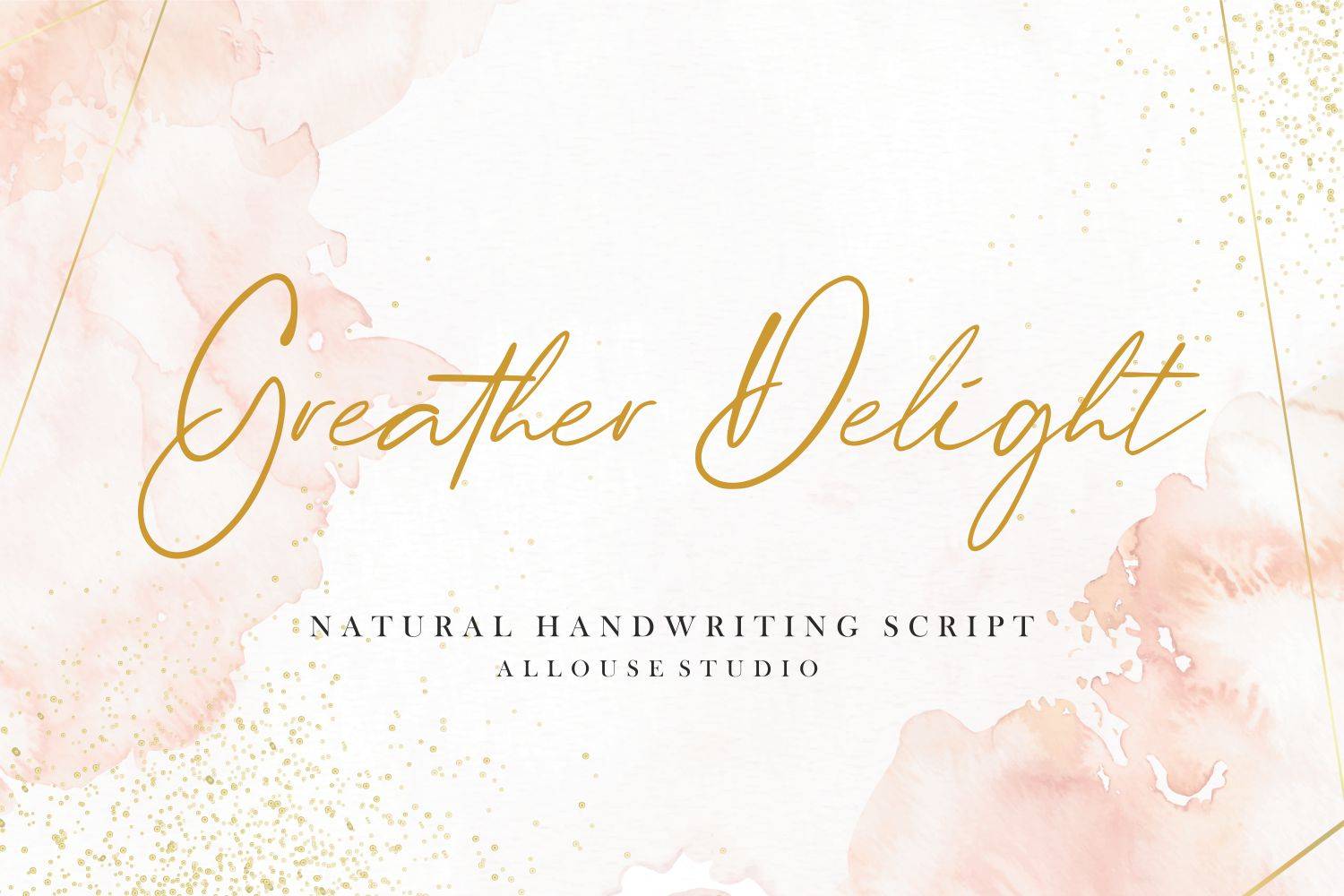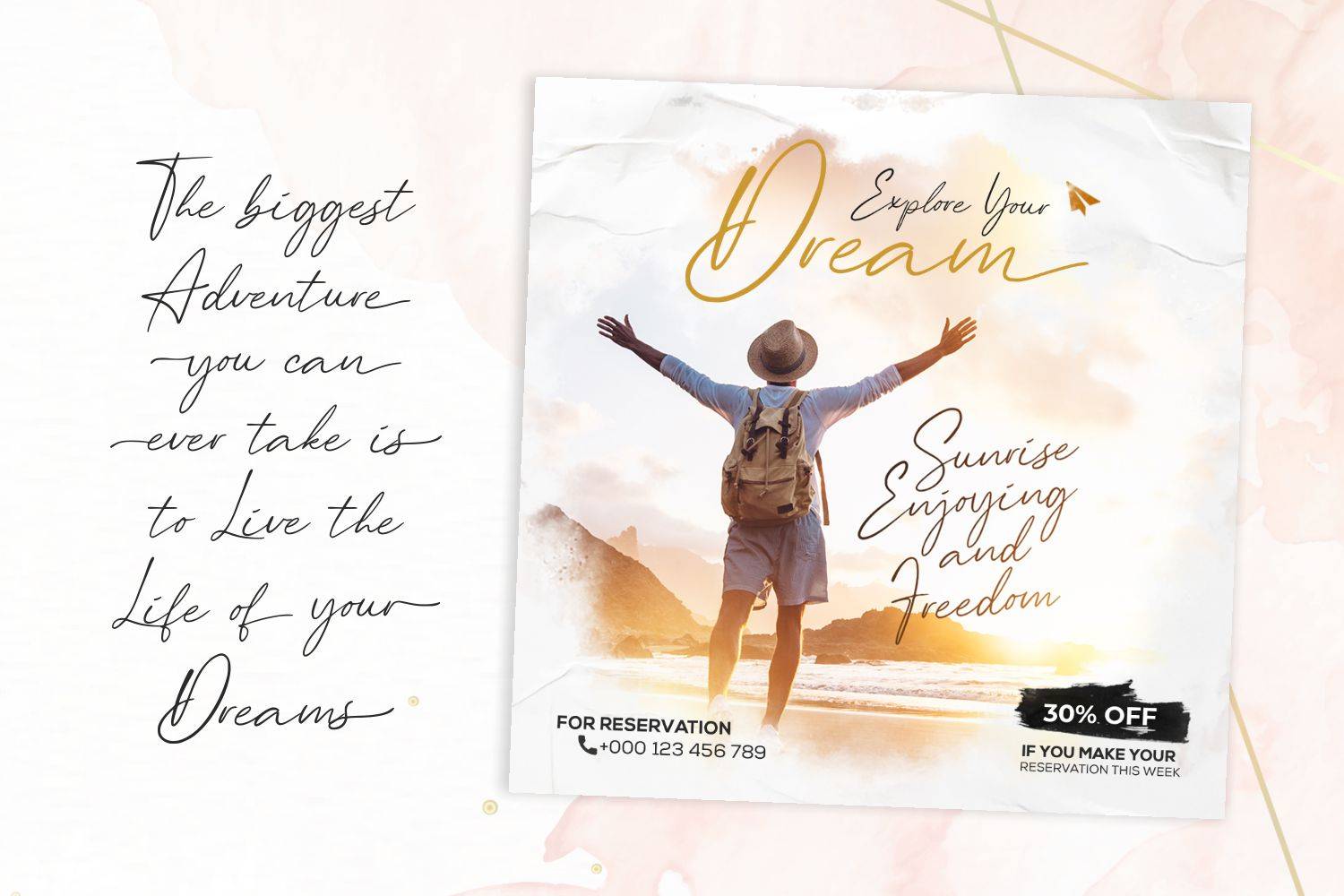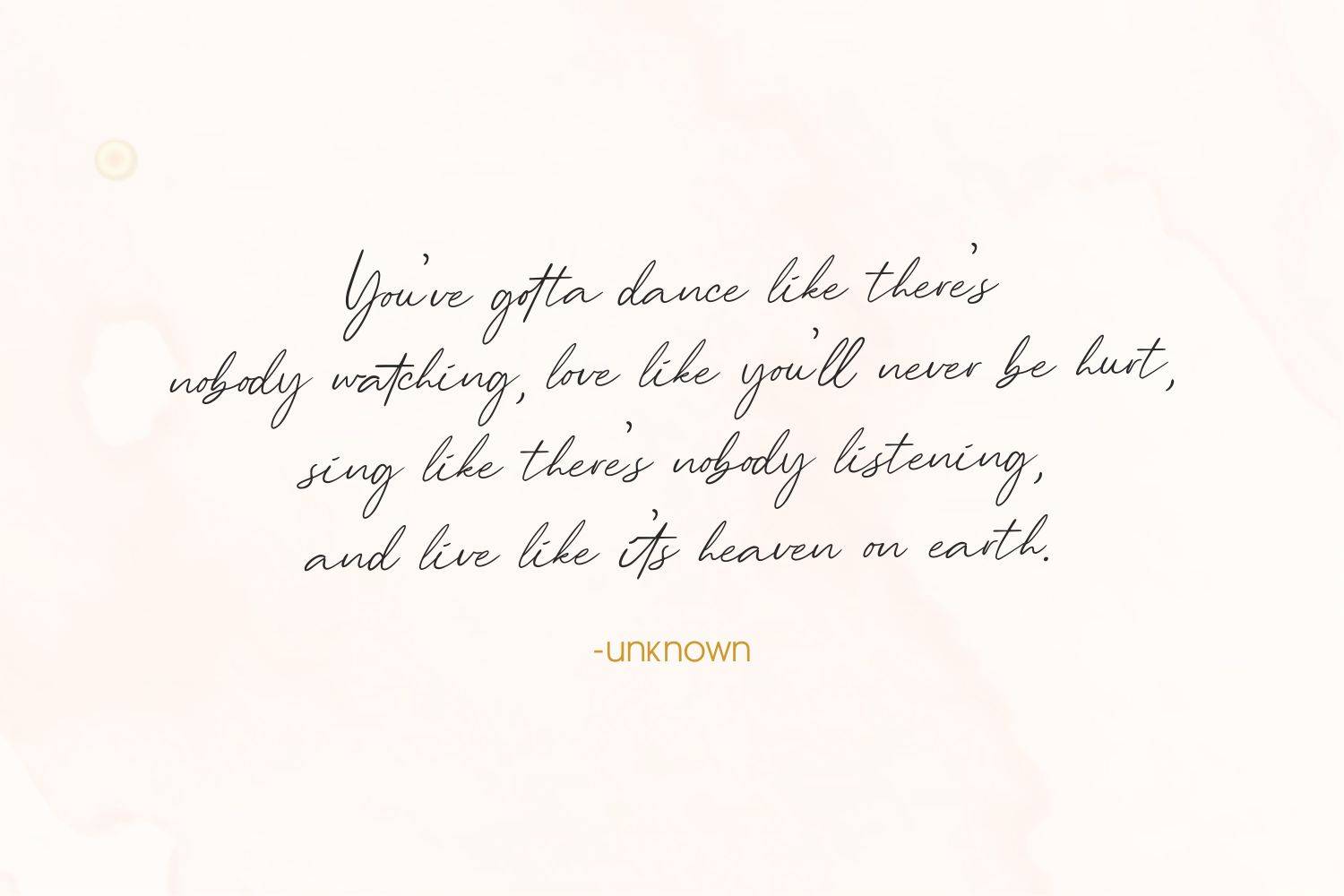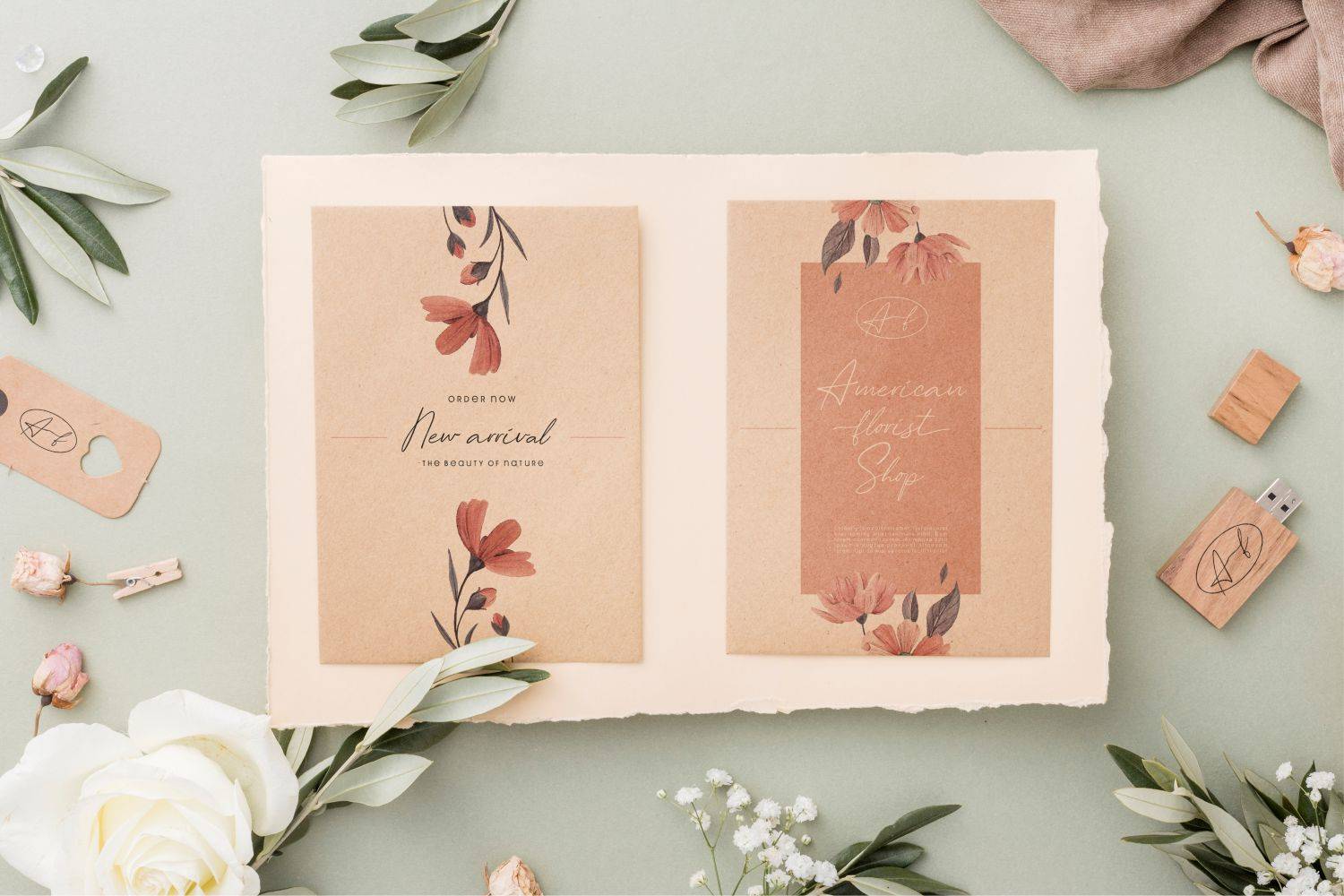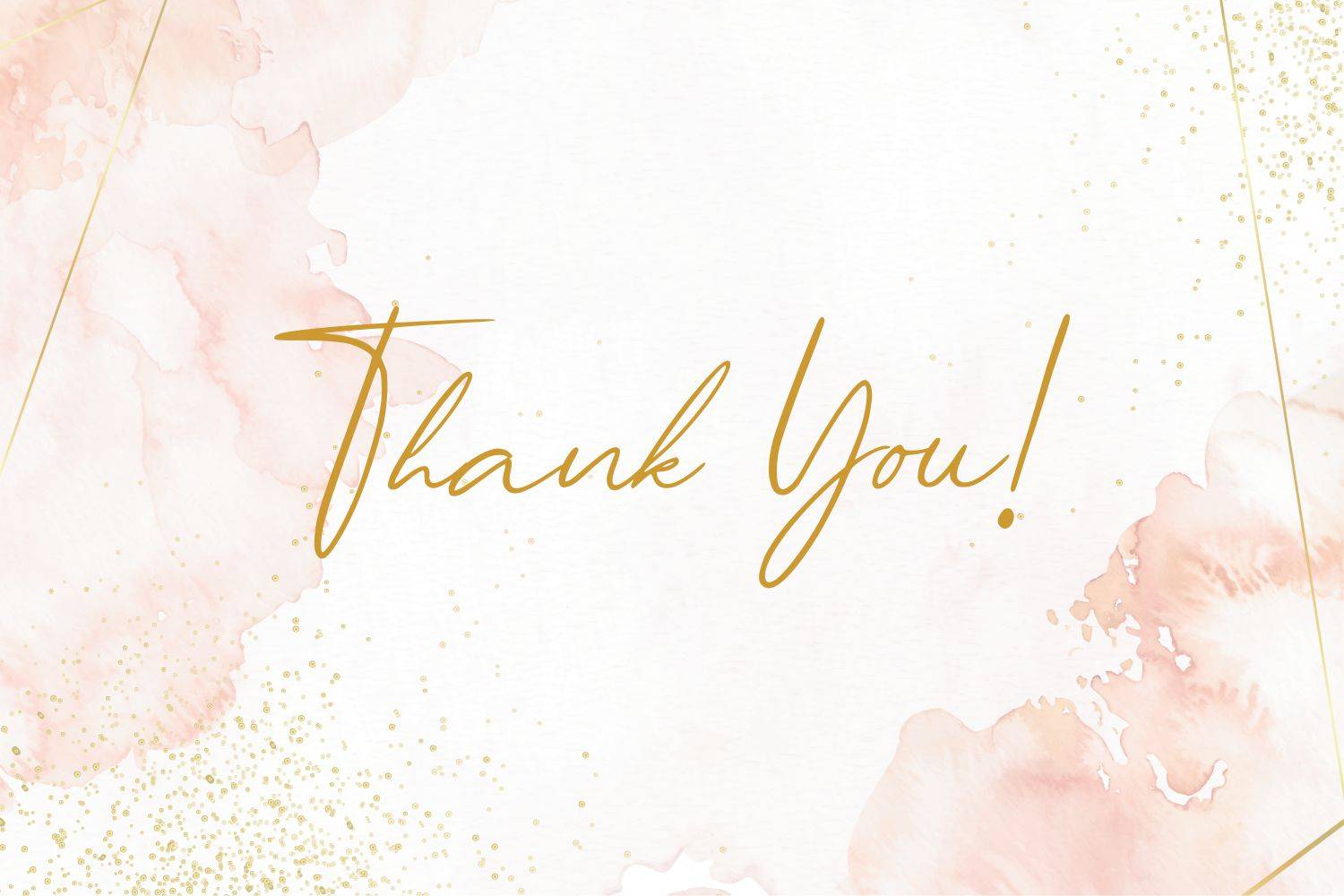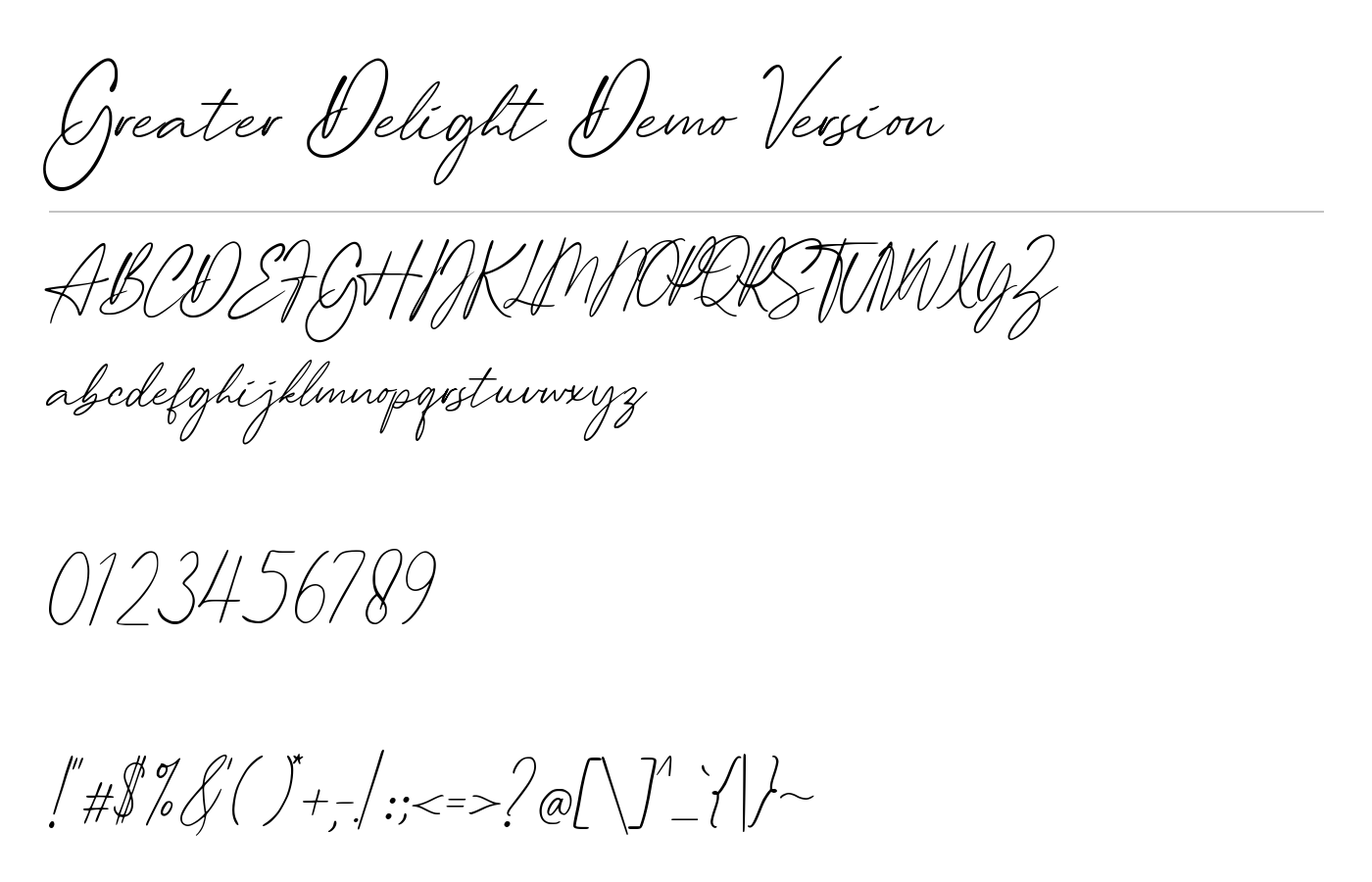
Greater Delight is a delicate, handwritten script font with a light and elegant feel. Its thin, flowing strokes and slightly irregular letterforms give it a personal, artistic touch, making it ideal for invitations, branding, and creative projects that seek a graceful and intimate style. This font works best in headlines or decorative text where a soft, charming impression is desired.
Greater Delight Font
About Greater Delight Font